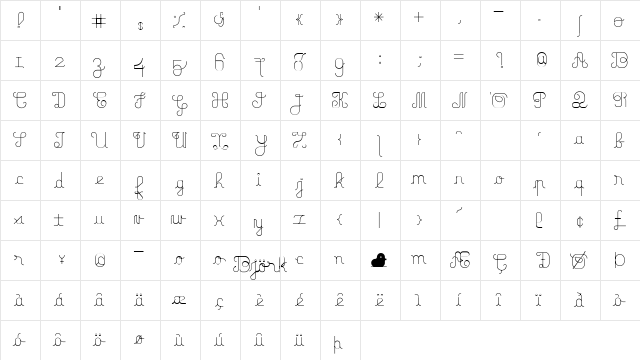
Family Tree Family Tree
| Foundry | Sam Lang |
| Designer | William phalangie |
Design Context for Family Tree Typeface
Family Tree is a composed and adaptable typeface that performs quietly and consistently across a wide range of design contexts.